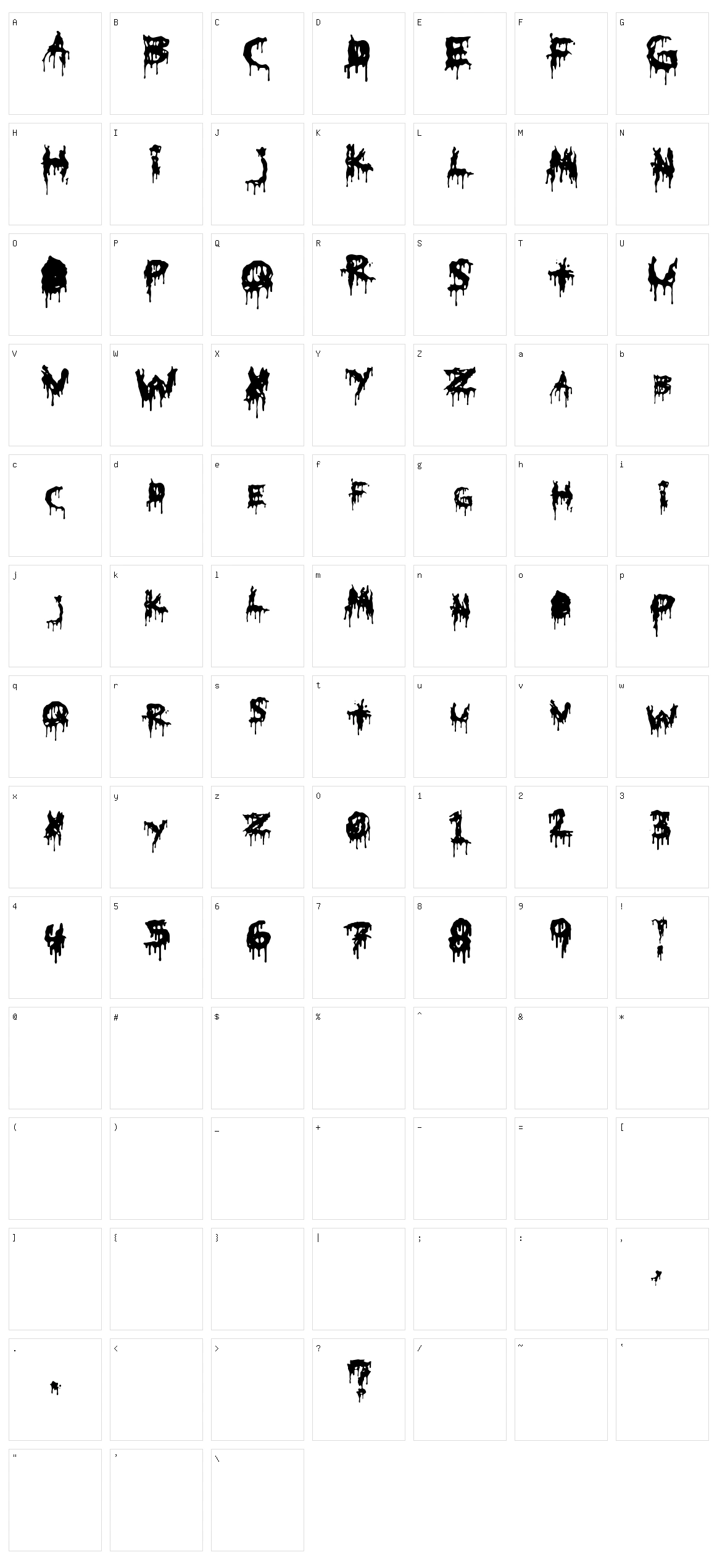
The free font HoMicIDE EFfeCt is carefully designed by nihilschiz, showcasing a thoughtful balance of creativity and usability and falls under the Horror font style. When you download the ZIP file, it contains only 28.44 KB of font files, making it lightweight and quick to download. Please review the license details below to understand permitted usage and distribution rights. If license information is not available, we recommend using this font for personal projects only or contacting the author directly for commercial usage permissions.
This version includes both capital and lowercase letters, numbers, and
some of the more commonly used punctuation. This thing took ages to
make. I drew all the characters, then suddenly realized they were too
small, so I had to retrace them all over again. I'm sure there was
probably a much quicker, easier way. But I didn't do that. I guess
the extra effort will show through...? Anywho, I drew this all by
hand (with a tablet, yeah, but I used my hand XD) The uppercase and
lowercase letters are basically the same, but the lowercase ones are
smaller and in a different position, so if there are 2 letters next to
each other you can make it look somewhat less lined up.